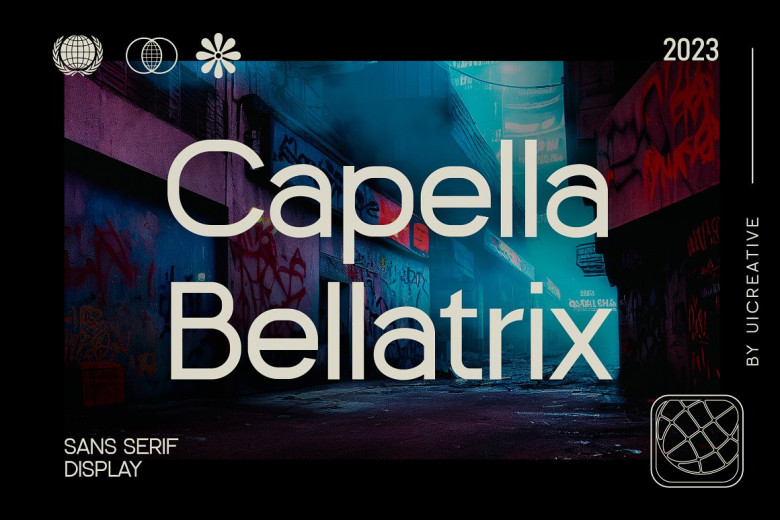
Capella Bellatrix Font
Capella Bellatrix Font Sans Serif is a modern serif font with an elegant feel that makes an impactful statement about beauty, class and sophistication. Ideal for magazine covers, book covers, packaging design projects and branding projects alike – even fashion related branding and editorial design can use this font with both masculine and feminine elements in mind!
Capella Bellatrix Sans Serif Font